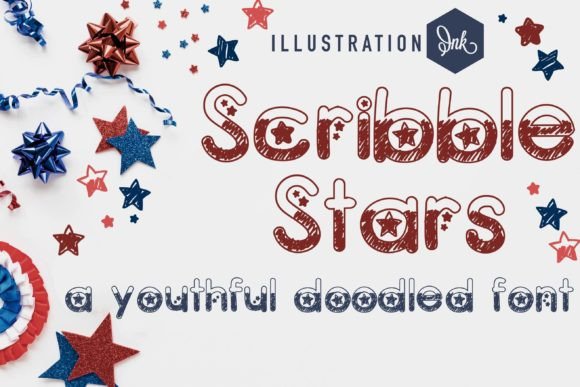
In the realm of decorative fonts, where creativity takes center stage, let us introduce you to the enchanting Scribble Stars Font – a stellar masterpiece from the visionary minds at Illustration Ink. This hand-crafted font is adorned with whimsical doodle elements, transforming each letter into an expressive work of art. Imagine your words embellished with stars that twinkle and dance, adding a touch of magic to your digital canvas.
Scribble Stars isn't just a font; it's an invitation to boundless expression. Every character is meticulously crafted to capture the joy and wonder of the starry night sky. Let your imagination soar as you unleash your creativity, crafting designs that exude warmth, personality, and a touch of delightful playfulness.
With Scribble Stars, the possibilities are as vast as the cosmos. This font is ideal for invitations, greeting cards, social media posts, posters, or any design project where a sprinkle of magic is desired. Its versatility extends from personal correspondence to professional marketing materials, allowing you to make a dazzling statement in any context.
Moreover, Scribble Stars possesses a remarkable ability to transcend age barriers. Its playful charm captivates children's hearts, while its artistic finesse appeals to adults seeking a touch of whimsy. The result is a font that resonates with audiences of all ages, creating a universal connection through the beauty of creativity.
To experience the full brilliance of Scribble Stars, let your imagination run wild. Picture a heartfelt birthday card, where the words dance among the stars, carrying your heartfelt message with a touch of celestial magic. Or envision a captivating social media post that sparkles with individuality, leaving your followers in awe of your design prowess.
Scribble Stars isn't just a font; it's an emotive journey, a celebration of imagination, and a testament to the transformative power of creativity. Its purpose is to infuse your designs with delight, to spark joy in the hearts of your audience, and to leave an indelible mark of artistic brilliance in the digital world. Embrace the magic of Scribble Stars and let your words shine brighter than the stars themselves.